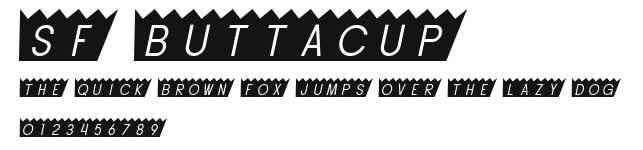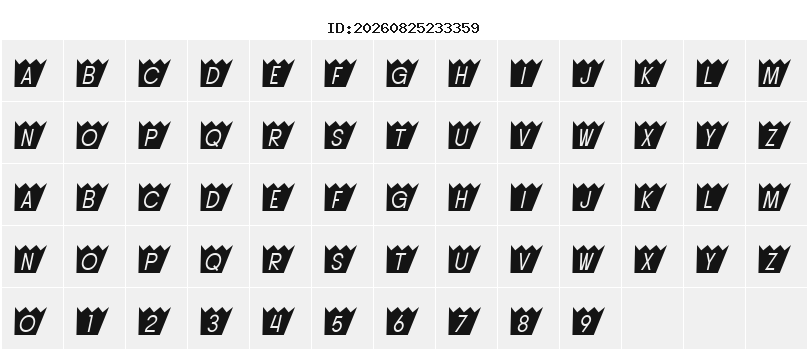
• Font Name: SF Buttacup
• Designer: ShyFonts Type Foundry
• Description: SF Buttacup Oblique is a trademark of the ShyFonts Type Foundry. Named by Carly Cohen.
About SF Buttacup.ttf
SF Buttacup.ttf is a modern, elegant sans-serif font designed for ultimate readability and visual harmony. Perfect for branding, headlines, web design, and print materials.